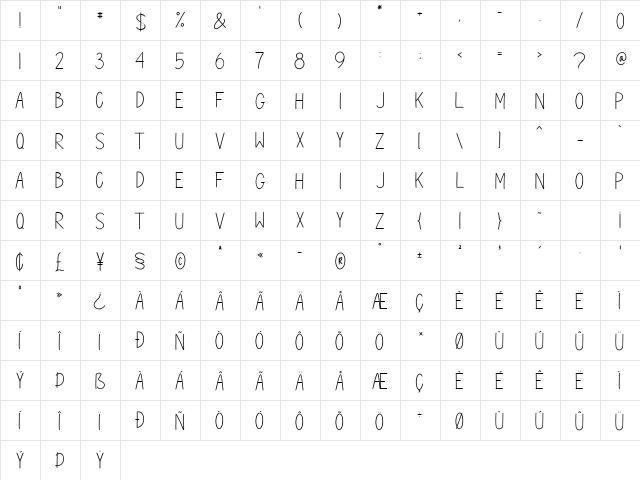
Nougat Regular
| Designer | Pen Culture |
Design Context for Nougat Typeface
Nougat is a composed and adaptable typeface that performs quietly and consistently across a wide range of design contexts.